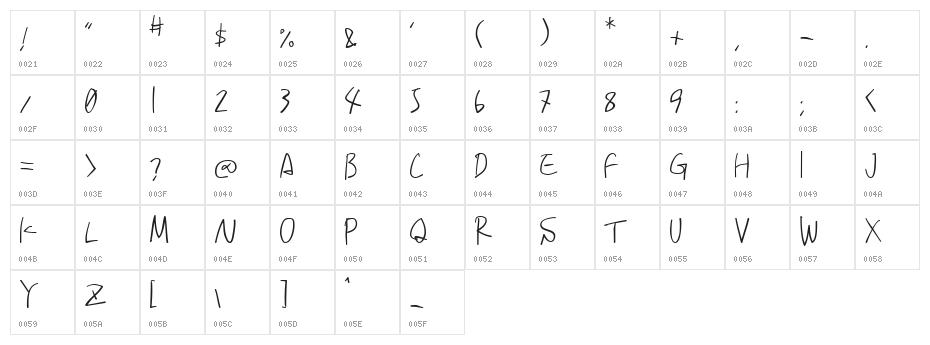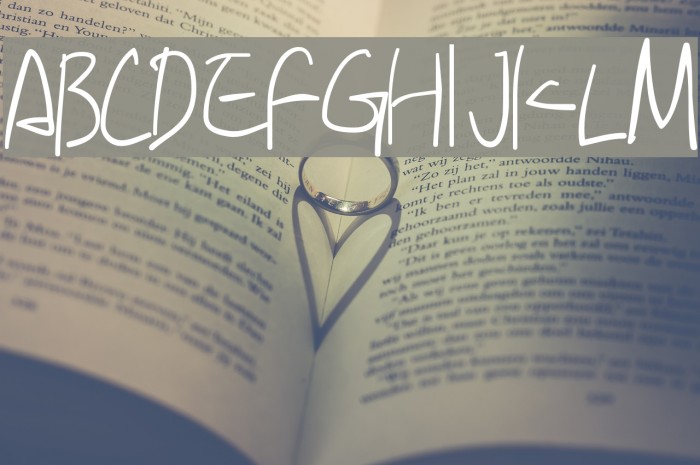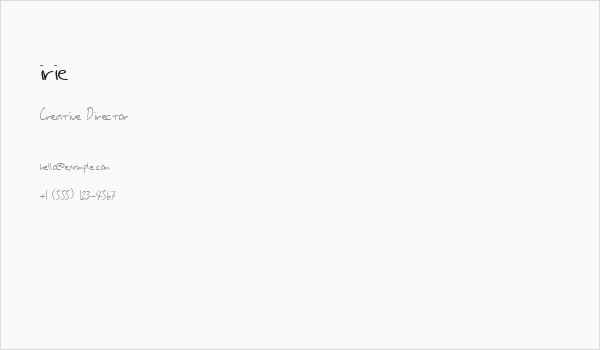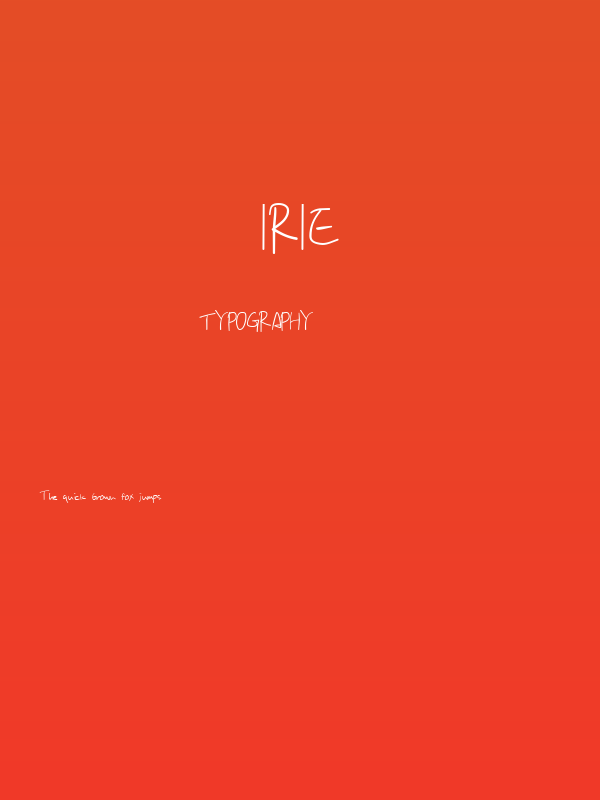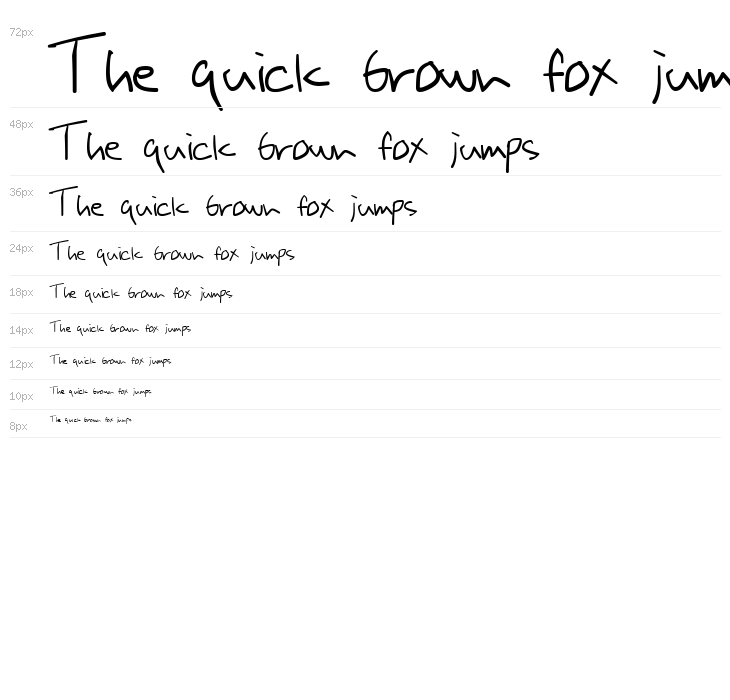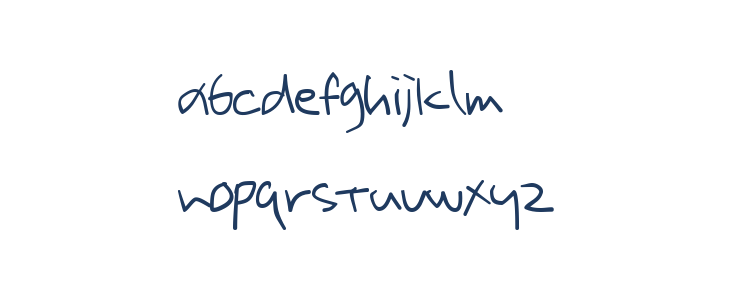
irie Font
irie Description
This font exudes a casual and playful vibe, characterized by its handwritten style. The letters are slightly irregular, with varying stroke thickness that adds to its informal charm. The uppercase and lowercase letters maintain a consistent style, with a slight slant that suggests a natural, flowing handwriting. The numerals and special characters are crafted with the same playful touch, making them blend seamlessly with the alphabet. This font is perfect for projects that require a personal, human touch, such as greeting cards, invitations, or informal branding materials. Its unique style captures attention while remaining legible and approachable.
| Overall Style | Casual, Playful |
| Use Case | Headlines, Informal text, Creative projects |
| Proposed Projects | Ideal for greeting cards, invitations, personal branding, and creative projects. |